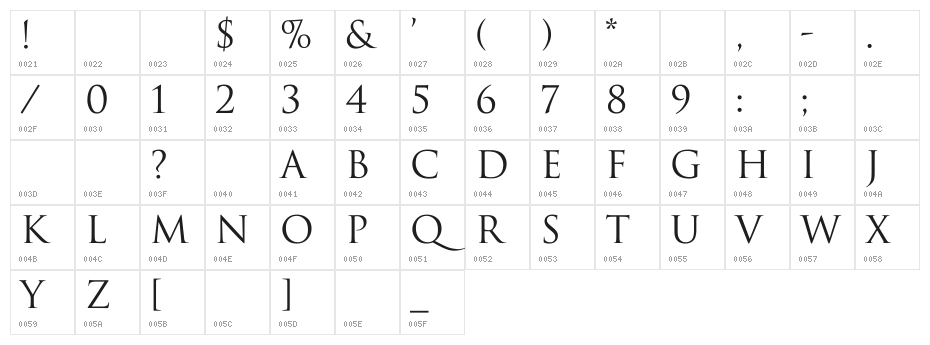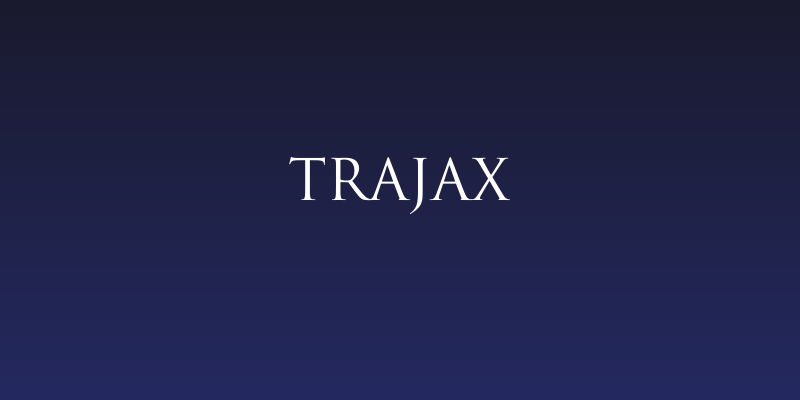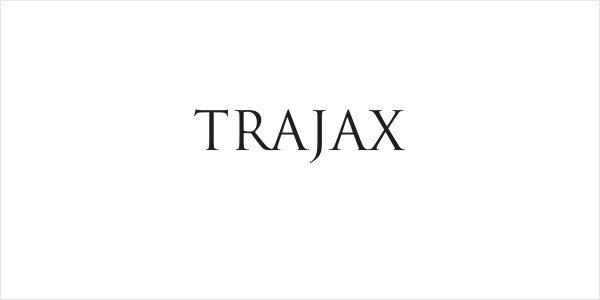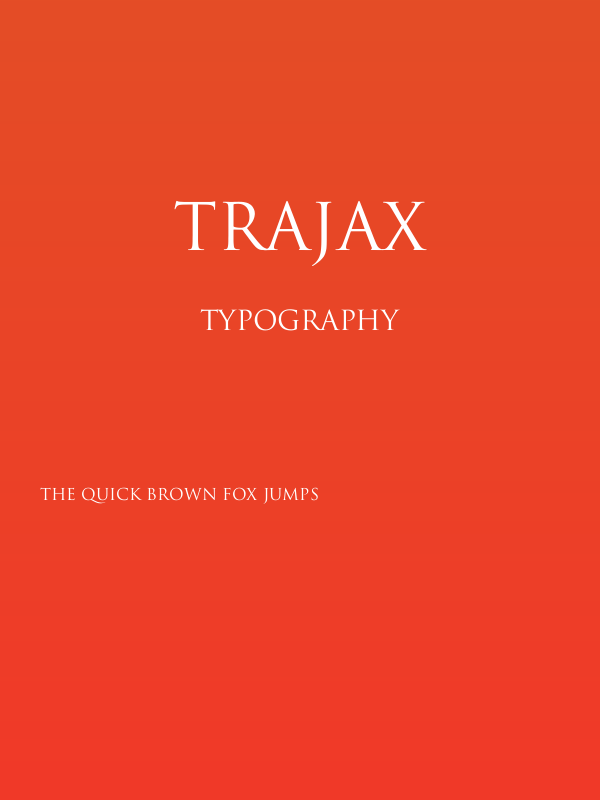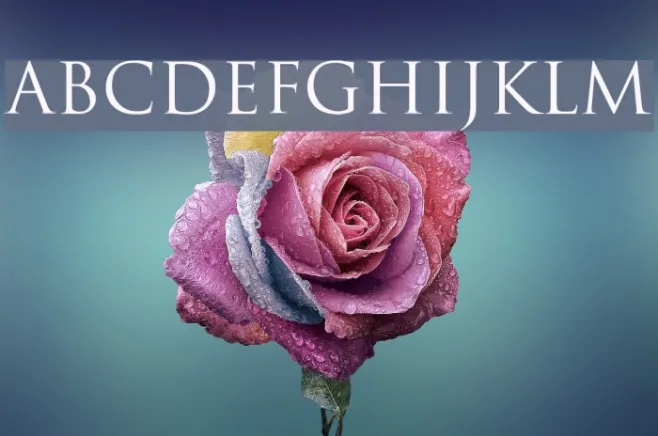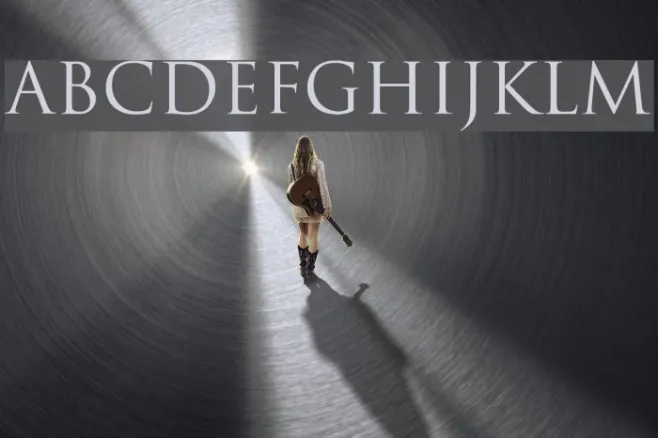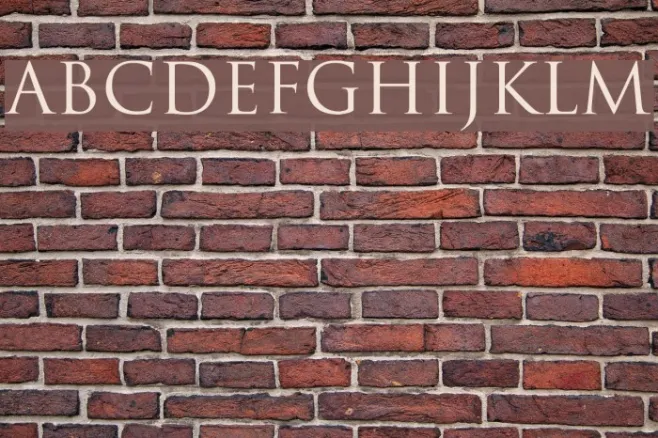
Trajax Font
Trajax Description
This font exhibits a classic serif style with elegant and refined strokes. The letters feature sharp serifs and a slight contrast in stroke thickness, giving it a sophisticated and timeless appearance. The uppercase letters are well-proportioned, while the lowercase letters maintain a consistent style with slightly rounded forms. The numerals are clear and distinct, making them easily readable. Special characters are designed to complement the overall aesthetic, adding to the font's versatility. This font is suitable for projects that require a touch of elegance and tradition.
| Proposed Projects | Ideal for book covers, formal invitations, branding, and editorial design. |